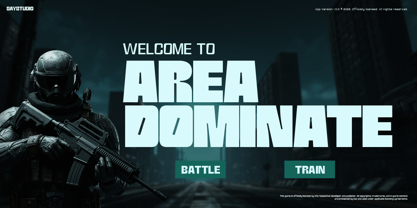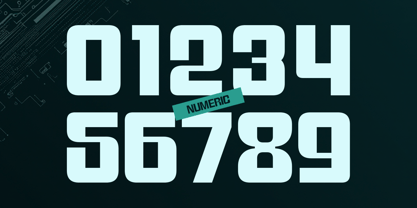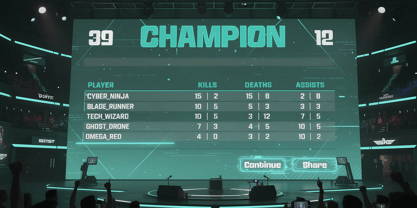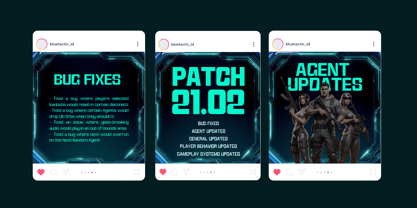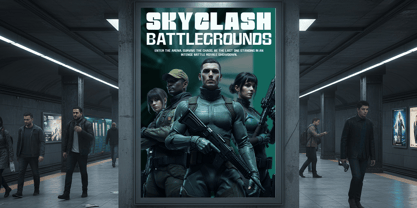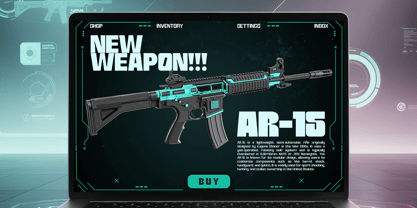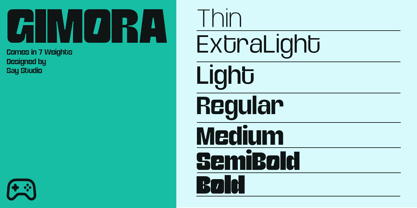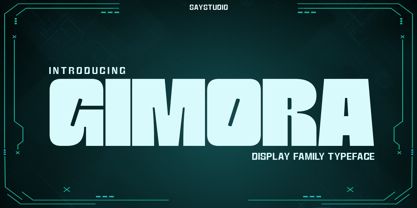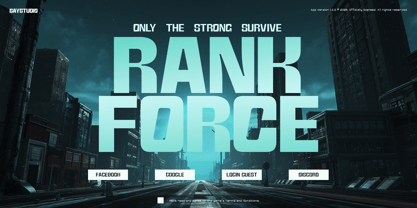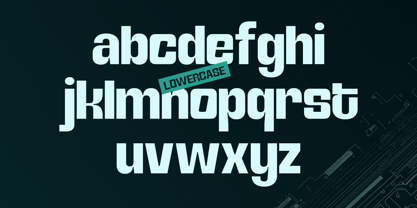
Gimora
The Gimora Font Family was designed by Mussyayin and published by Say Studio. Gimora contains 14 styles and family package options. More about this family
Gimora is a cutting-edge display typeface family designed to deliver bold impact, sharp clarity, and a high-tech character across contemporary visual design. With its robust geometric construction, smooth curves, and dynamic proportions, Gimora establishes a commanding presence that feels innovative, digital, and forward-thinking. This font is crafted to stand out instantly while ensuring excellent legibility. Ideal for tech branding, gaming visuals, esports identities, sci-fi concepts, UI headers, futuristic posters, and digital campaigns, Gimora offers a versatile typographic system for projects that require energy, precision, and modern aesthetics. Its display family structure enables designers to create consistent, flexible, and scalable design systems across various platforms, from mobile interfaces to large-format graphics. Perfect for gaming studios, technology brands, startup identities, cyberpunk visuals, digital product launches, streaming overlays, motion graphics, and social media content, Gimora helps shape strong futuristic branding with confidence and style. Whether used for bold headlines or immersive visual storytelling, Gimora delivers sharp impact, a modern edge, and professional polish. Thank You, Have a Good Day! Saystudio